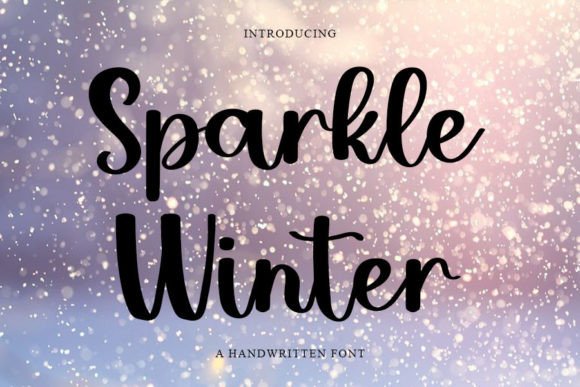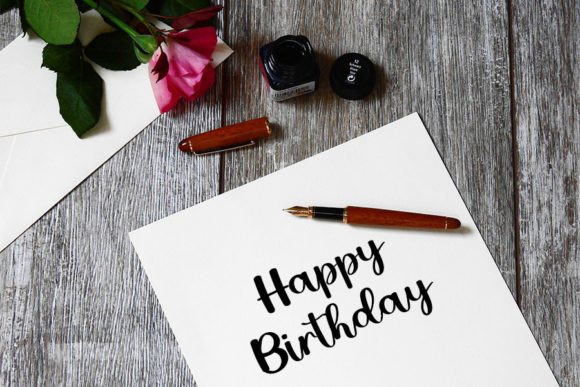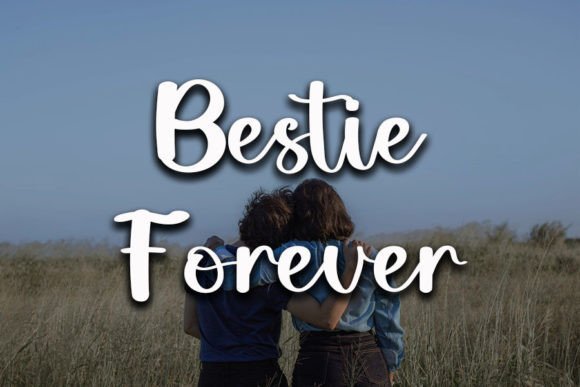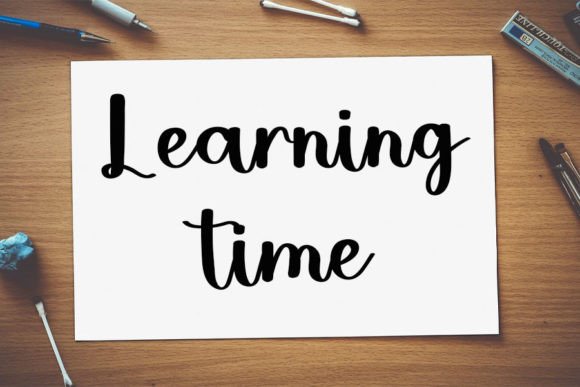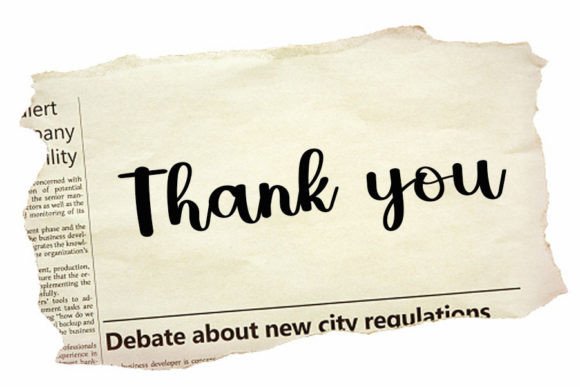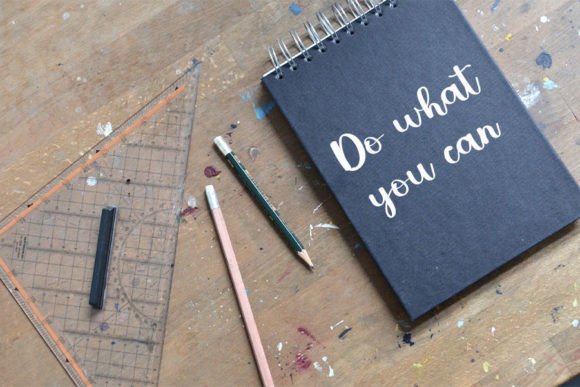
Sparkle Winter Font
About Sparkle Winter Font
Sparkle Winterfont is a magical handwritten typeface that combines elegance with a playful, quirky touch. Crafted with care, this clean and stylish font is perfect for adding a unique and handcrafted feel to your creative projects. Whether you’re working on logos, branding, social media posts, or crafty DIY ideas, Sparkle Winterfont brings a fresh and distinctive vibe that makes your designs stand out.
Elegant and Quirky Style
Sparkle Winterfont blends sophistication with a hint of whimsy. Its delicate, flowing strokes create an elegant atmosphere, while subtle quirks in the letterforms add warmth and personality. This combination makes the font versatile for a variety of uses, from formal branding to casual, creative projects.
Perfect for Branding and Logos
Use Sparkle Winterfont to craft logos and branding materials that demand attention and express uniqueness. Its handcrafted appearance helps brands stand out in crowded markets by conveying authenticity and charm. Whether for boutique businesses, personal brands, or creative ventures, this font offers a stylish solution.
Ideal for Social Media and DIY Projects
This font excels in social media graphics, giving posts and stories a polished yet personal touch. It’s also great for DIY projects, such as personalized cards, invitations, and crafts, adding that special sparkle to every design.
Versatile and Easy to Use
Thanks to PUA encoding, Sparkle Winterfont provides easy access to an array of glyphs and swashes. This feature allows you to customize your designs effortlessly, making it a valuable tool for designers and hobbyists alike.
Why Choose Sparkle Winter Font?
Sparkle Winterfont delivers a magical blend of elegance and playful charm, making it perfect for a wide range of creative projects. Its clean and quirky style ensures your work looks polished and unique. Elevate your designs with Sparkle Winterfont and enjoy the perfect handwritten touch for logos, branding, social media, and DIY crafts.